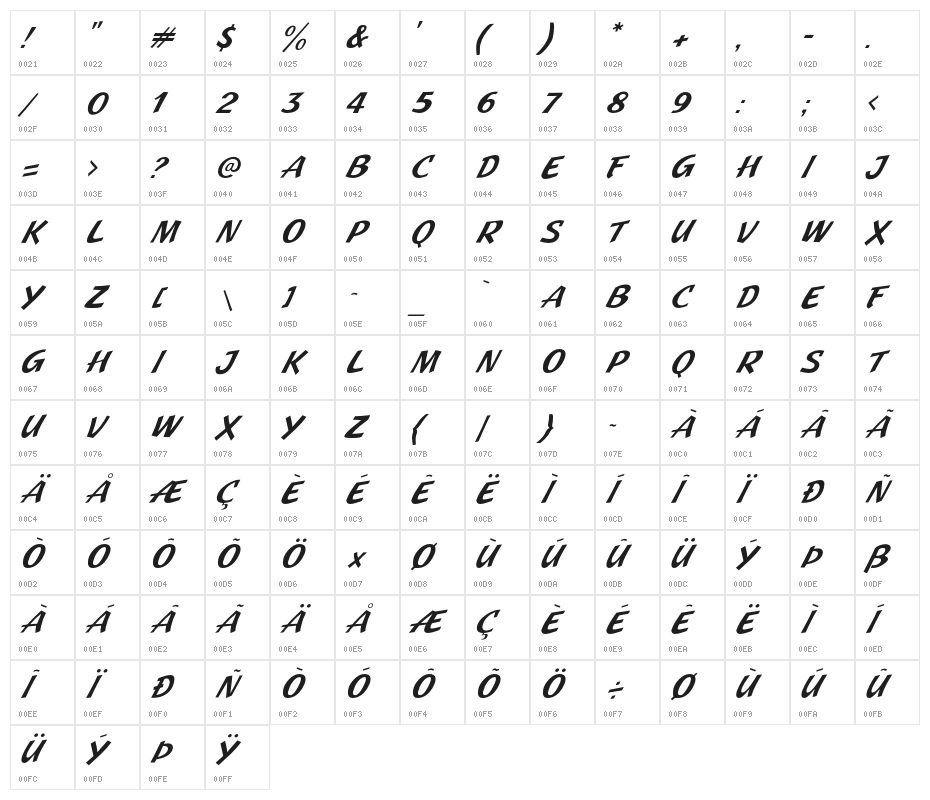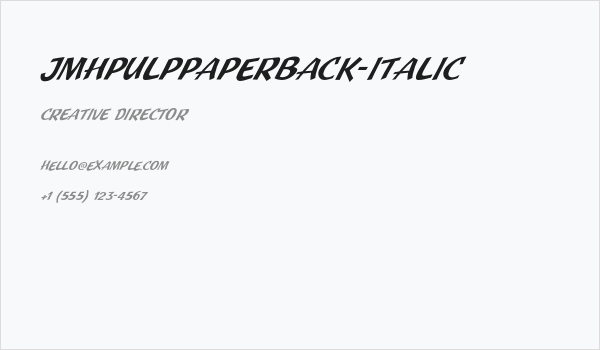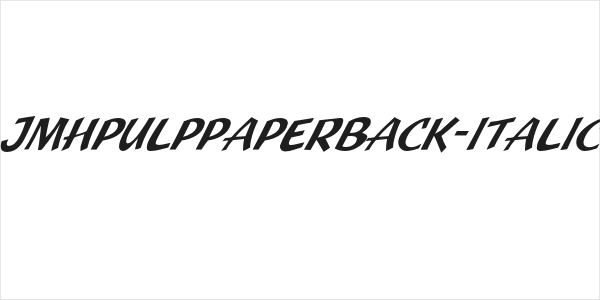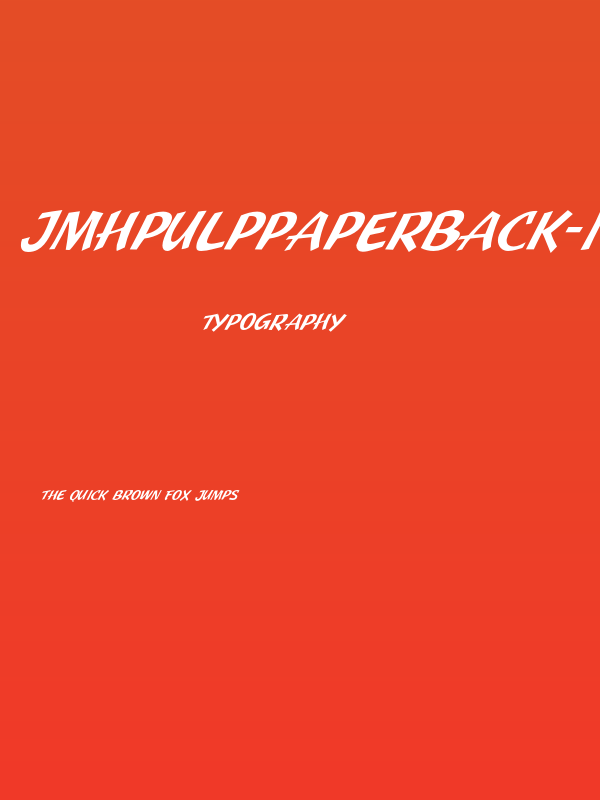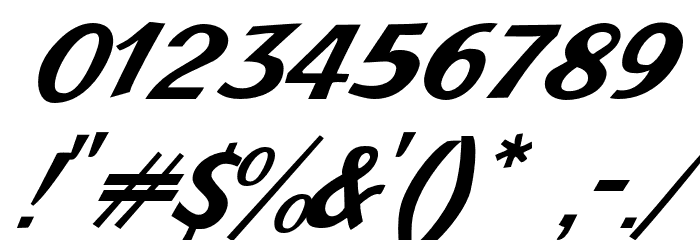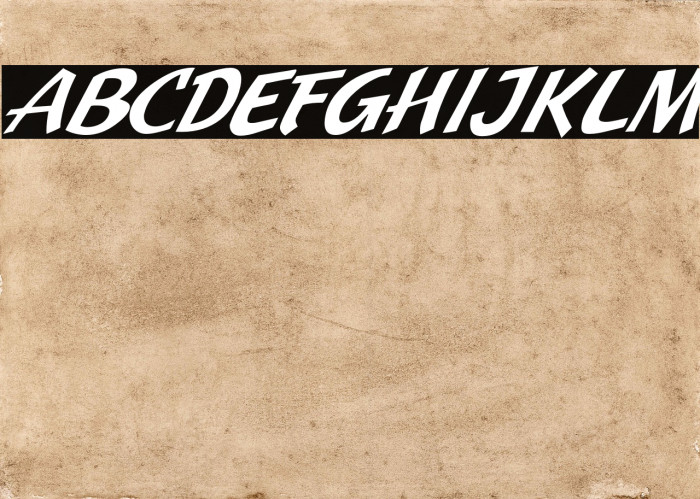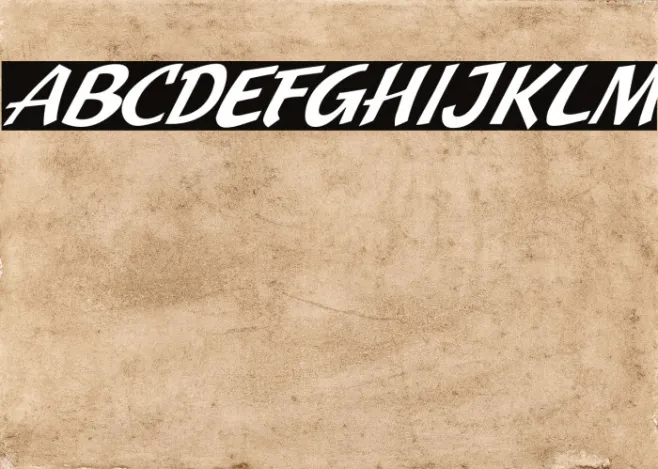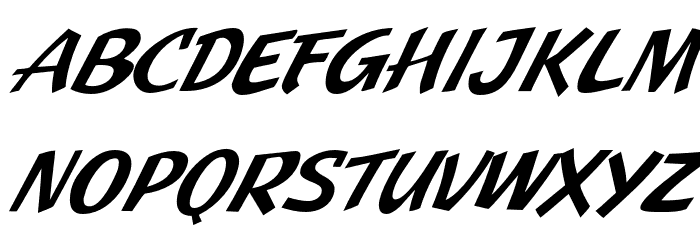
JMHPulpPaperback-Italic Font
JMHPulpPaperback-Italic Description
This font features a bold and dynamic italic style, characterized by its sharp, angular strokes and a strong forward slant. The letters are closely spaced, creating a sense of urgency and movement. The uppercase letters are particularly striking, with exaggerated serifs and a distinctive flair. The numerals and special characters maintain the same boldness and angularity, ensuring consistency across all glyphs. This font is designed to capture attention and convey a sense of energy and action.
| Proposed Projects | Ideal for book covers, posters, and branding projects that require a bold and energetic typeface. |